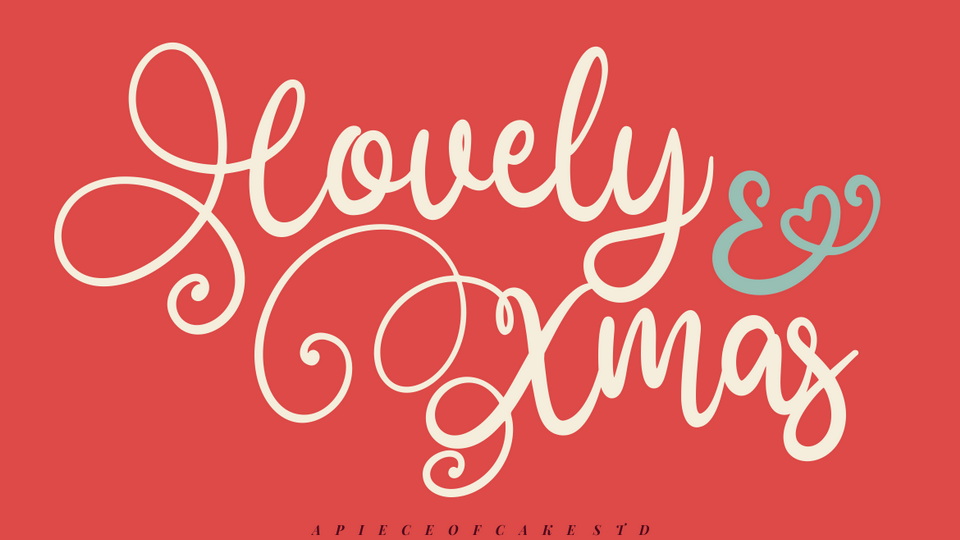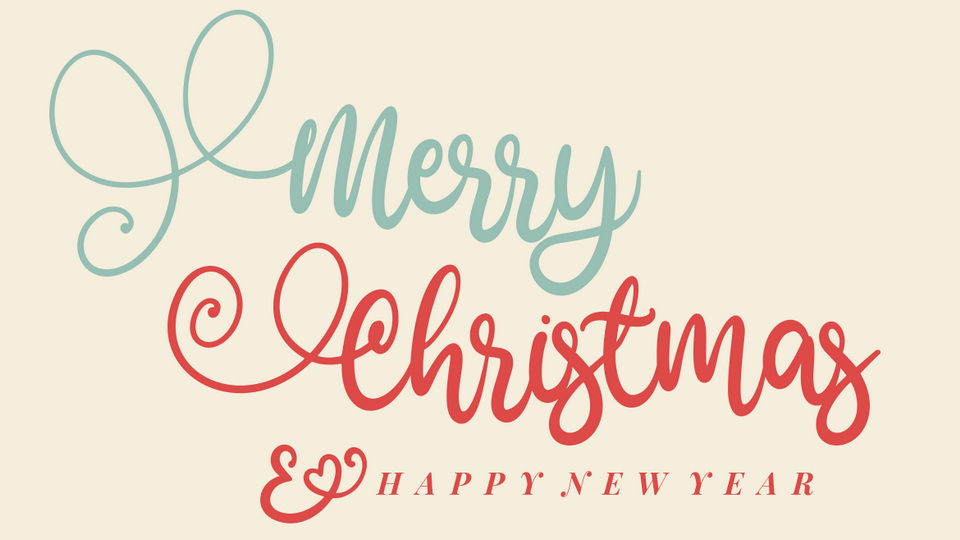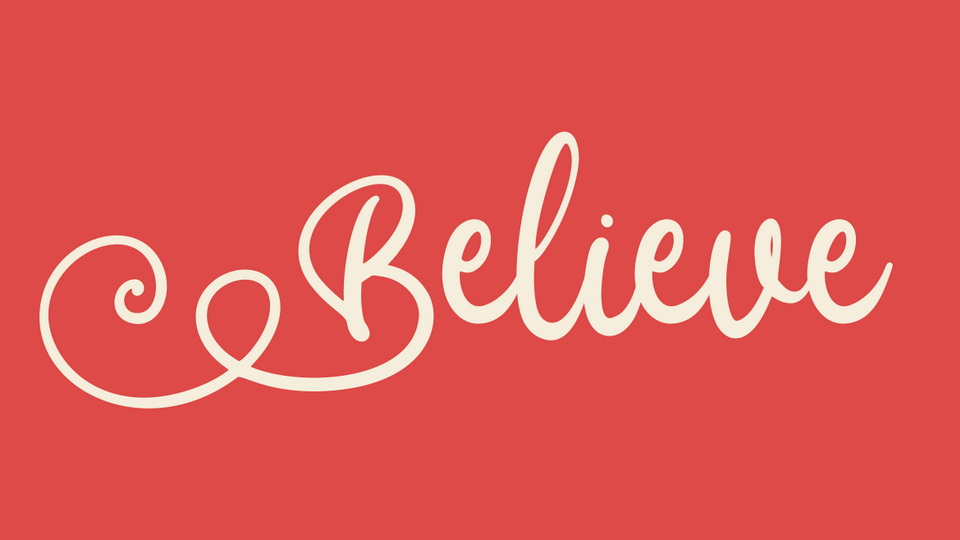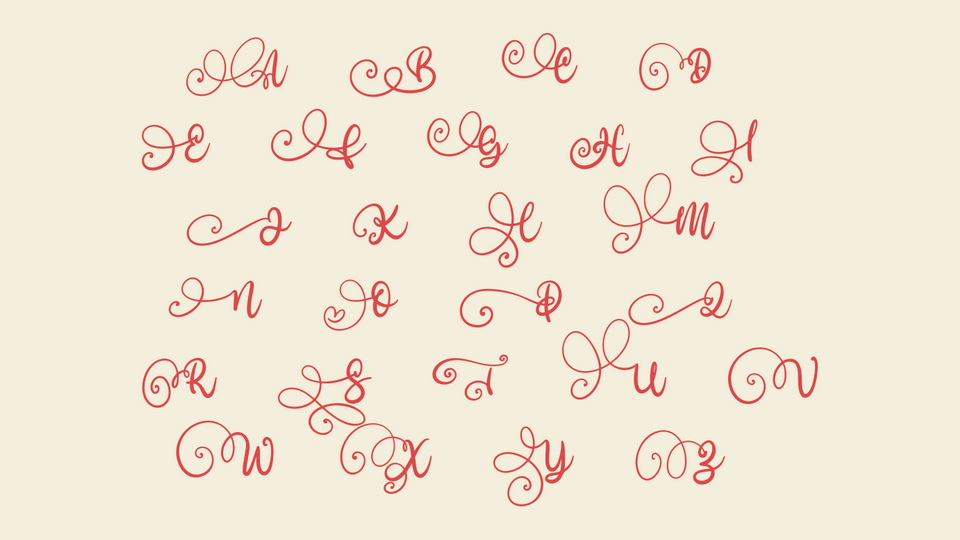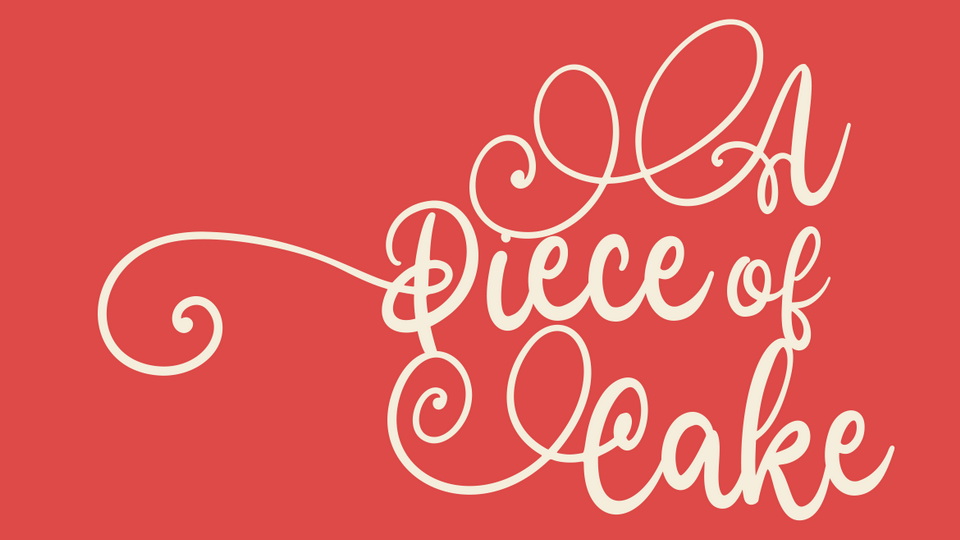
Lovely Xmas is a stylish and delicate handwritten font. This versatile typeface has a wide spectrum of applications ranging from greeting cards to headlines and is guaranteed to add a romantic feel to your next project.